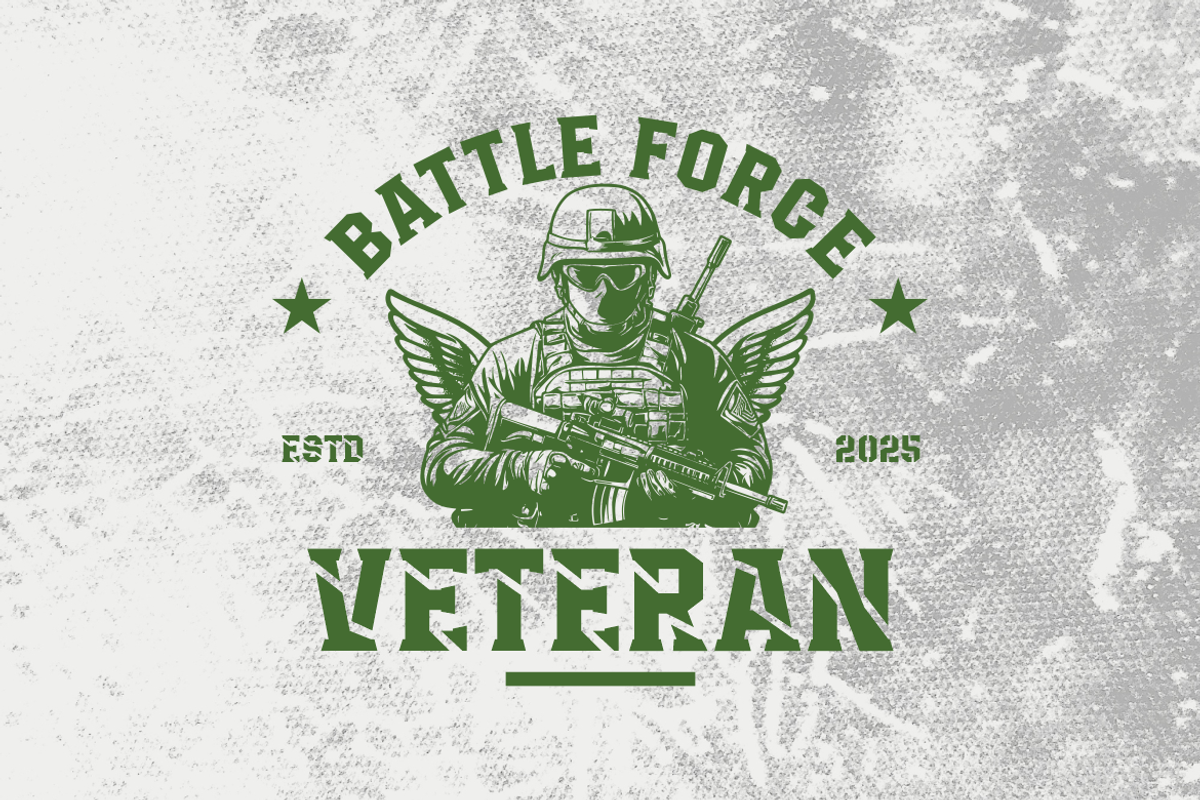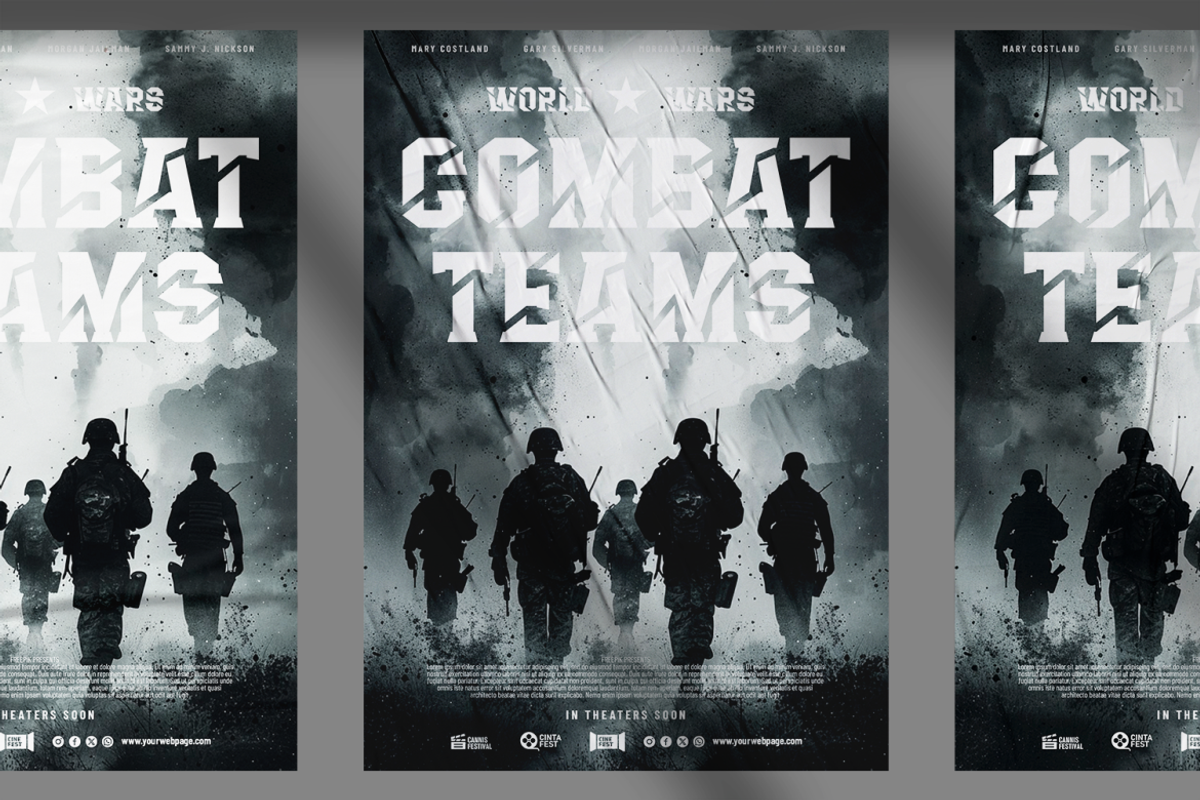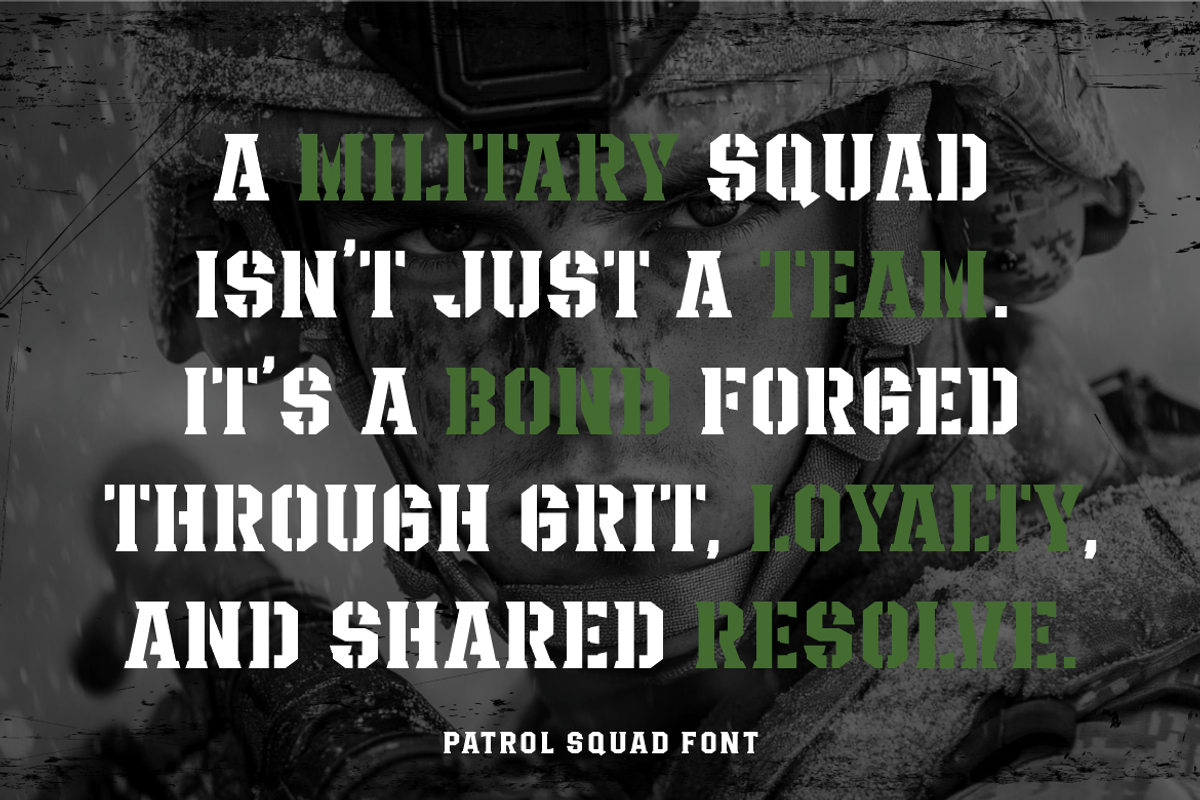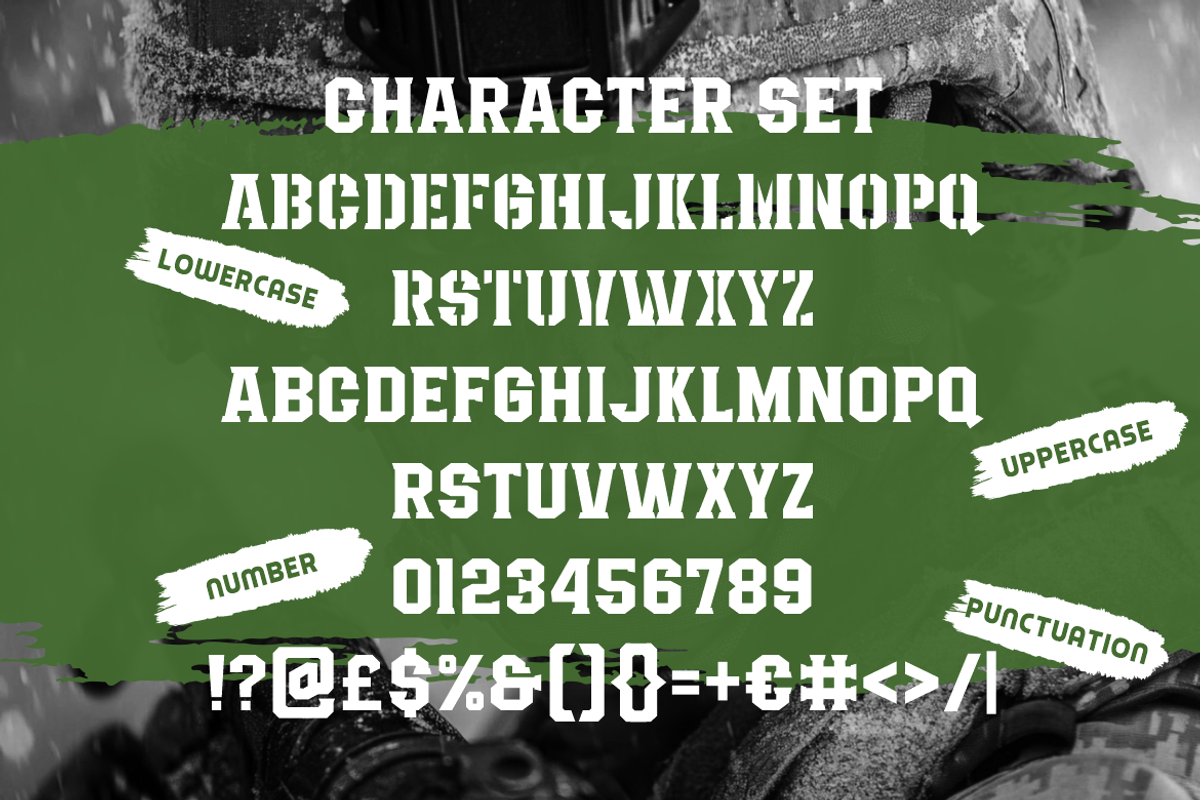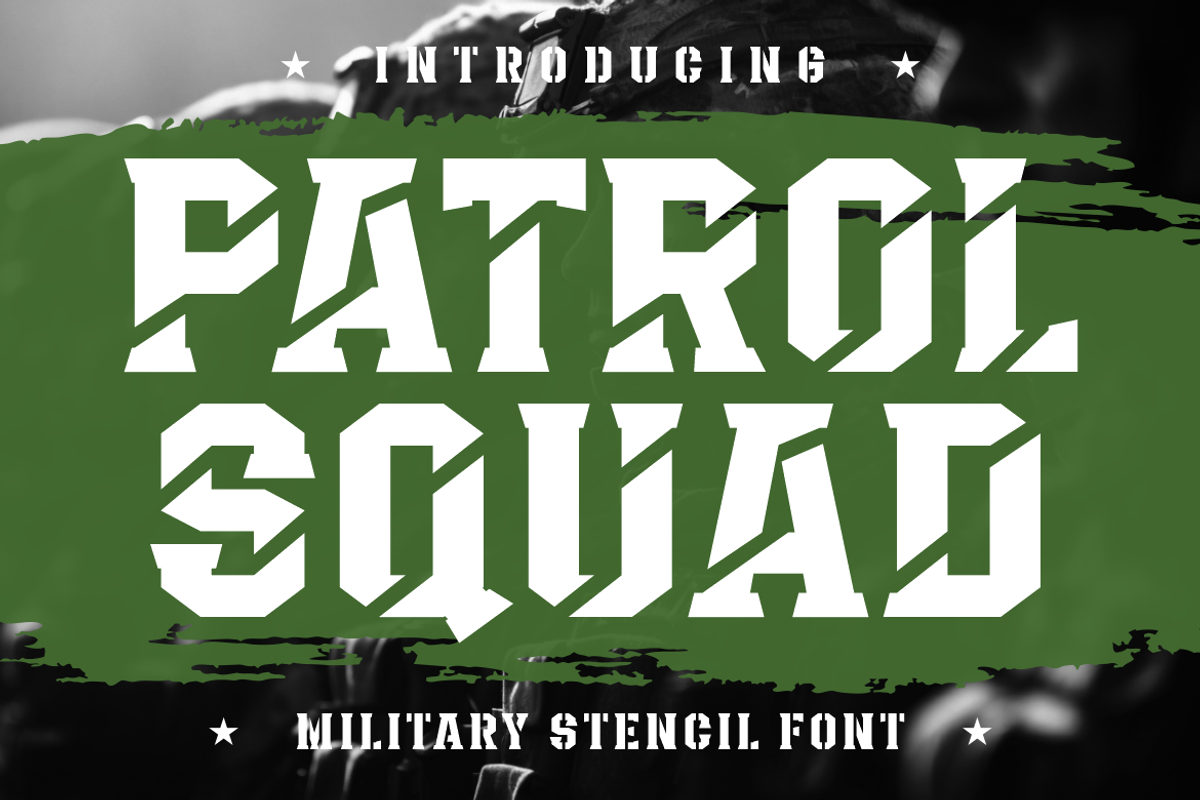
Patrol Squad Military Stencil Font
Patrol Squad is a bold military-style stencil font designed to command attention and amplify your message. Its solid, angular characters and rugged cuts mimic the classic stenciling used on army equipment and tactical gear. This display typeface blends sharp precision with assertive form, perfect for creating strong branding, impactful posters, powerful film titles, or anything that demands masculine presence. Whether you’re designing military-themed artwork, war movie graphics, or adventure game titles, Patrol Squad brings a field-tested look that’s hard to ignore.
Crafted with versatility in mind, the font includes uppercase, lowercase, numerals, and essential punctuation. The letterforms are optimized for both print and digital display, ensuring clarity and consistency. Its high-contrast design and clean spacing support dynamic readability across various sizes. From battlefield-themed graphics to veteran memorabilia, this typeface reinforces authority and courage in every project. Designed for creatives who need strong design tools for bold messages, Patrol Squad delivers precision, durability, and aesthetic strength in one package.